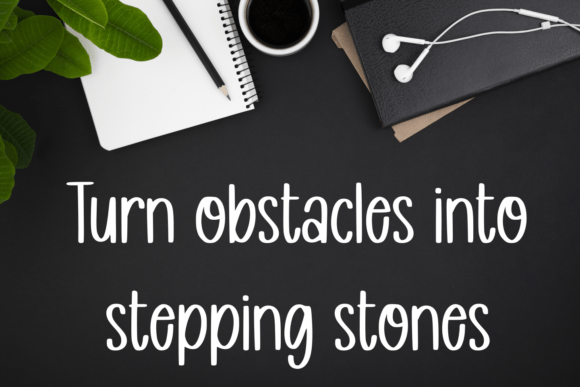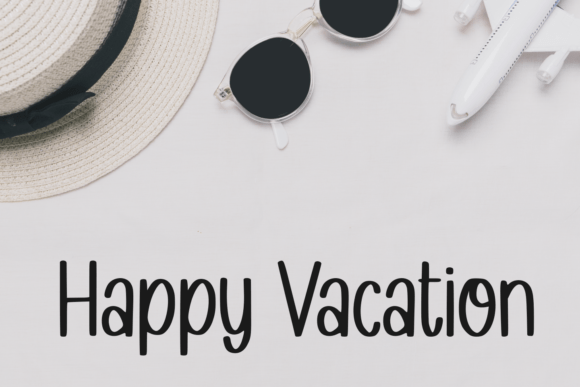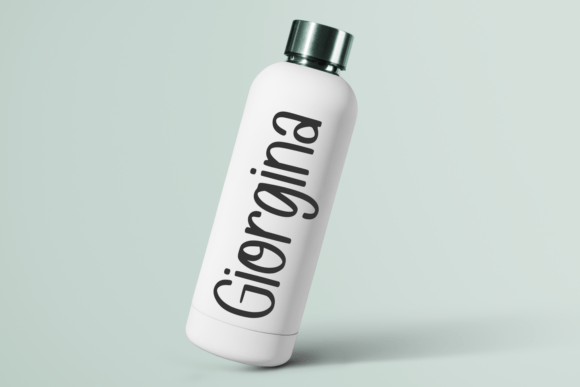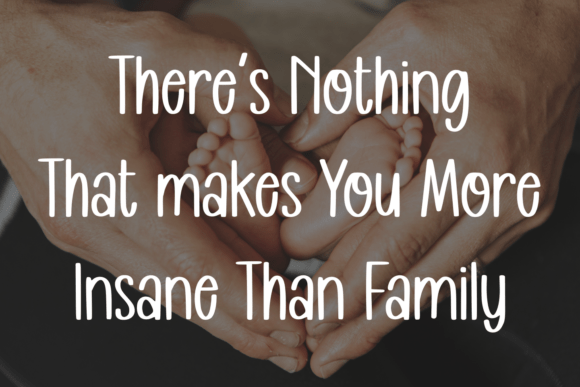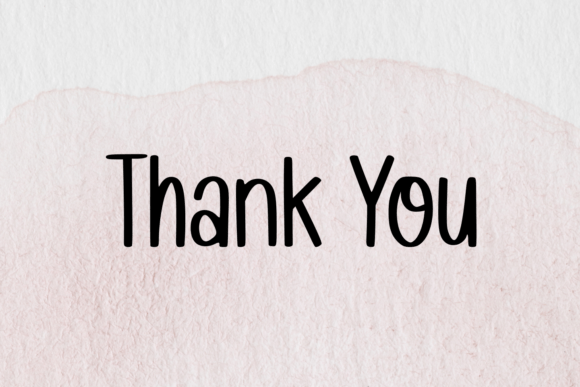
Introduction to Maesaroh Font
Have you ever stared at a blank page, feeling the pressure to create something amazing, only to be met with a sea of empty space and a mind full of creative blocks? For designers, this moment is all too familiar. But what if the right design resource could spark inspiration and bring your vision to life? Enter the Maesaroh Font, a clean handwritten sans serif that’s about to become your new go-to companion for any creative project.
With its smooth, balanced, and thoughtfully refined letterforms, Maesaroh Font offers a fresh balance between authenticity and precision. Whether you’re working on branding, editorial layouts, invitations, or digital content, this versatile font is sure to deliver a friendly yet composed tone that’s both personal and professional. And the best part? It’s free to download, making it a high-quality design resource that won’t break the bank.
Key Features of Maesaroh Font
- High-quality design resource for creative projects, perfect for logos, branding, and typography.
- Unique and elegant script font with a transparent background, ideal for adding a touch of sophistication to your designs.
- Available in 4 different font weights, ranging from Light to Bold, to cater to various design needs.
Honest Review: Maesaroh Font
I recently had the chance to work with the Maesaroh Font for a creative project and I must say, it’s been a great experience. This font is definitely a valuable design resource for anyone looking to add a unique touch to their work.
Here are some things that work well with the Maesaroh Font: ✨
- High quality design: The font is well-designed, with clean lines and a modern aesthetic that makes it perfect for a variety of projects.
- Transparent background: This feature allows for easy background removal and makes it easy to use with transparent backgrounds.
While the Maesaroh Font is a great addition to any design arsenal, there are a few limitations to consider: ⚠️
- Limited font styles: The font comes in a limited number of styles, which may not be suitable for projects that require a lot of font variety.
- No advanced features: The font doesn’t offer any advanced features like ligatures or contextual alternates.
Overall, I’m impressed with the Maesaroh Font. It’s a great design resource that’s perfect for designers who want a high-quality, modern font without breaking the bank. I’d definitely recommend it to anyone looking to add some flair to their creative project.
Maesaroh Font is a versatile design resource that can be used in a variety of creative projects, including graphic design, branding, and digital art. It’s ideal for designers who need a high-quality, transparent background font for their designs.
Alternatives to Maesaroh Font
The Great Vibes Font is a modern, elegant script font ideal for creative projects that require a touch of sophistication. It features a high-quality design with a transparent background, making it perfect for use on various backgrounds. Great Vibes Font is available for free download and is suitable for designs that need a stylish, cursive look.
Compared to Maesaroh Font, Great Vibes Font has a more refined and polished appearance, making it ideal for high-end design projects.